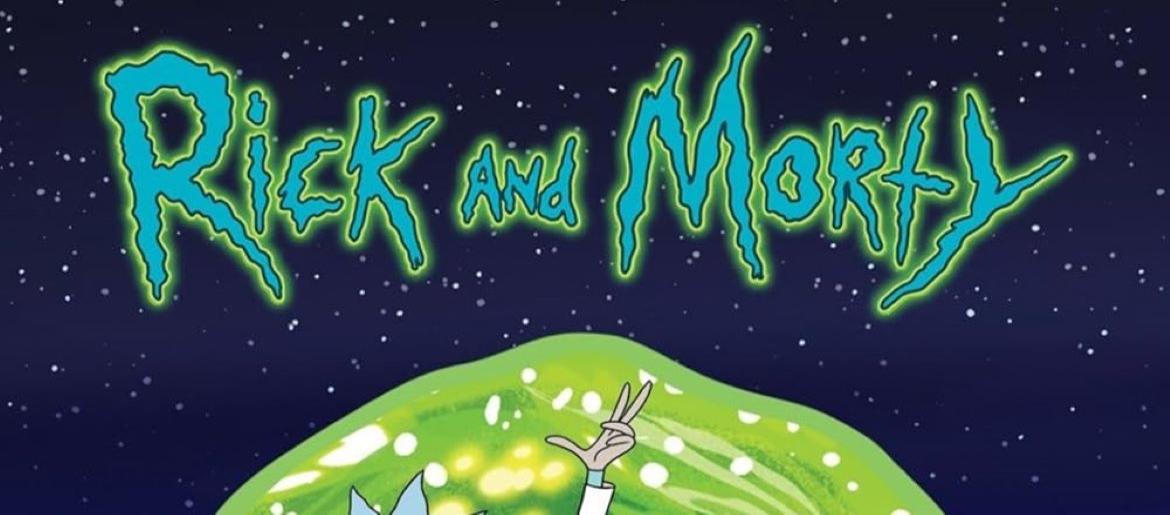
Rick and Morty Font
The Rick and Morty font is wild, wavy, and wonderfully chaotic—perfectly capturing the unpredictable tone of the animated series. With its hand-drawn, slime-like lettering, this font gives off an immediate sci-fi and comedic vibe. It’s messy, quirky, and intentionally imperfect, echoing the show’s blend of absurd humor, interdimensional mayhem, and offbeat visual style.
About Rick and Morty
Rick and Morty premiered in 2013 and quickly became a cult sensation. The show follows the dangerous, dimension-hopping adventures of eccentric genius Rick Sanchez and his anxious grandson Morty. Blending dark comedy, sci-fi chaos, and sharp satire, it delivers unpredictable stories that keep fans hooked. Just like the Rick and Morty font, the series is bold, strange, and unlike anything else on TV.